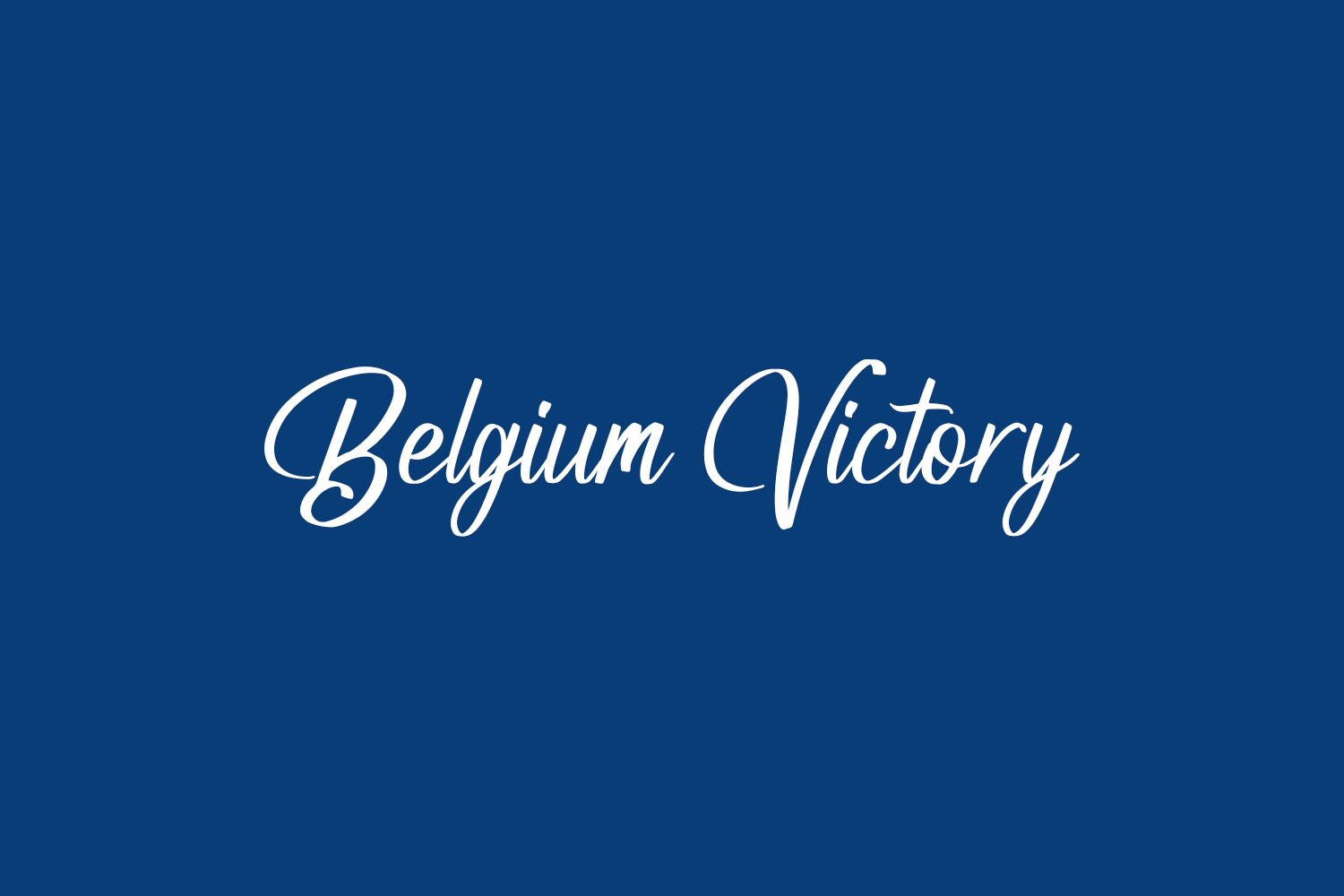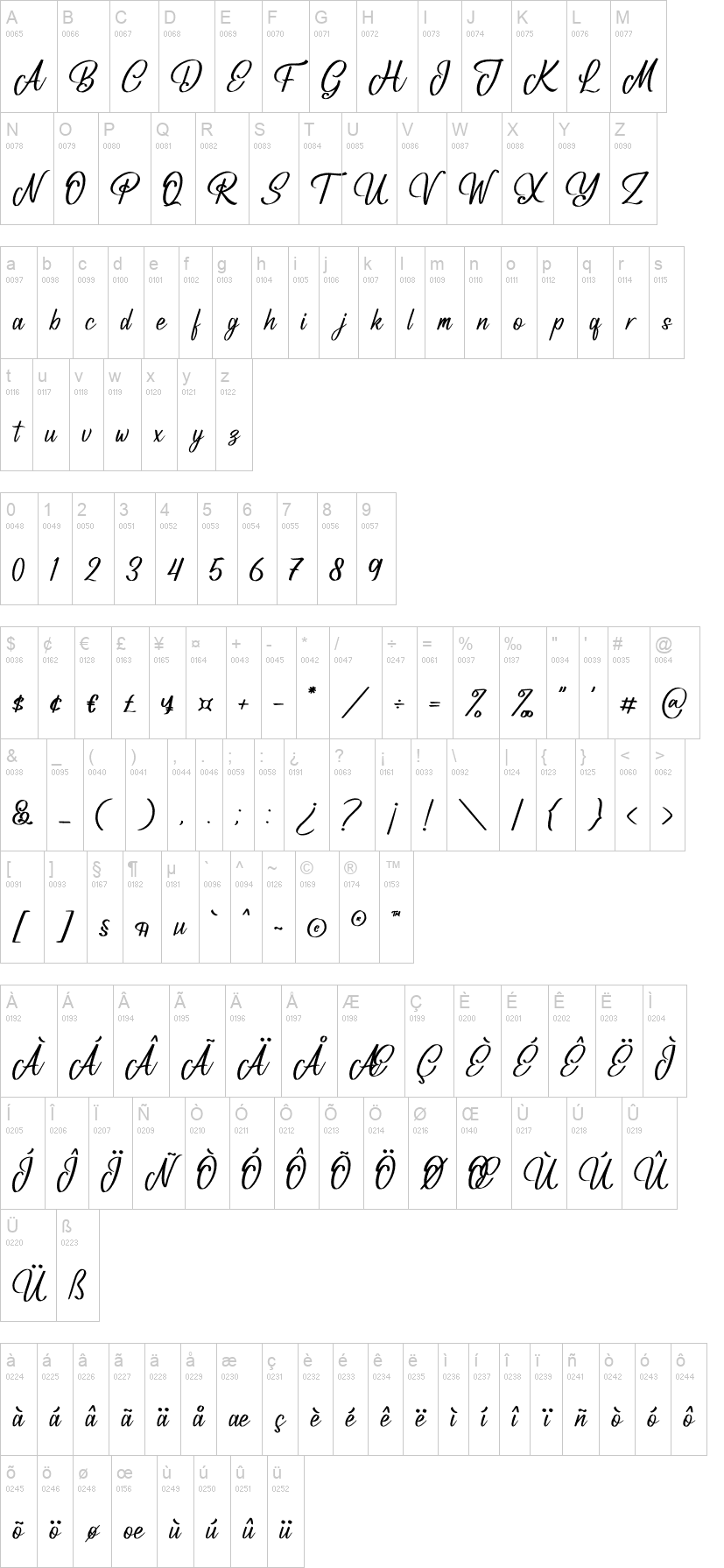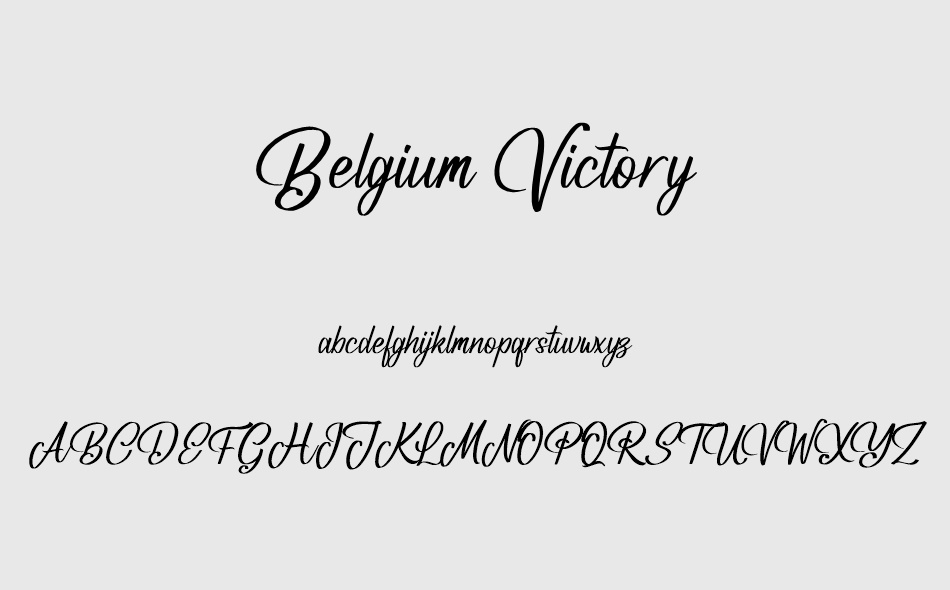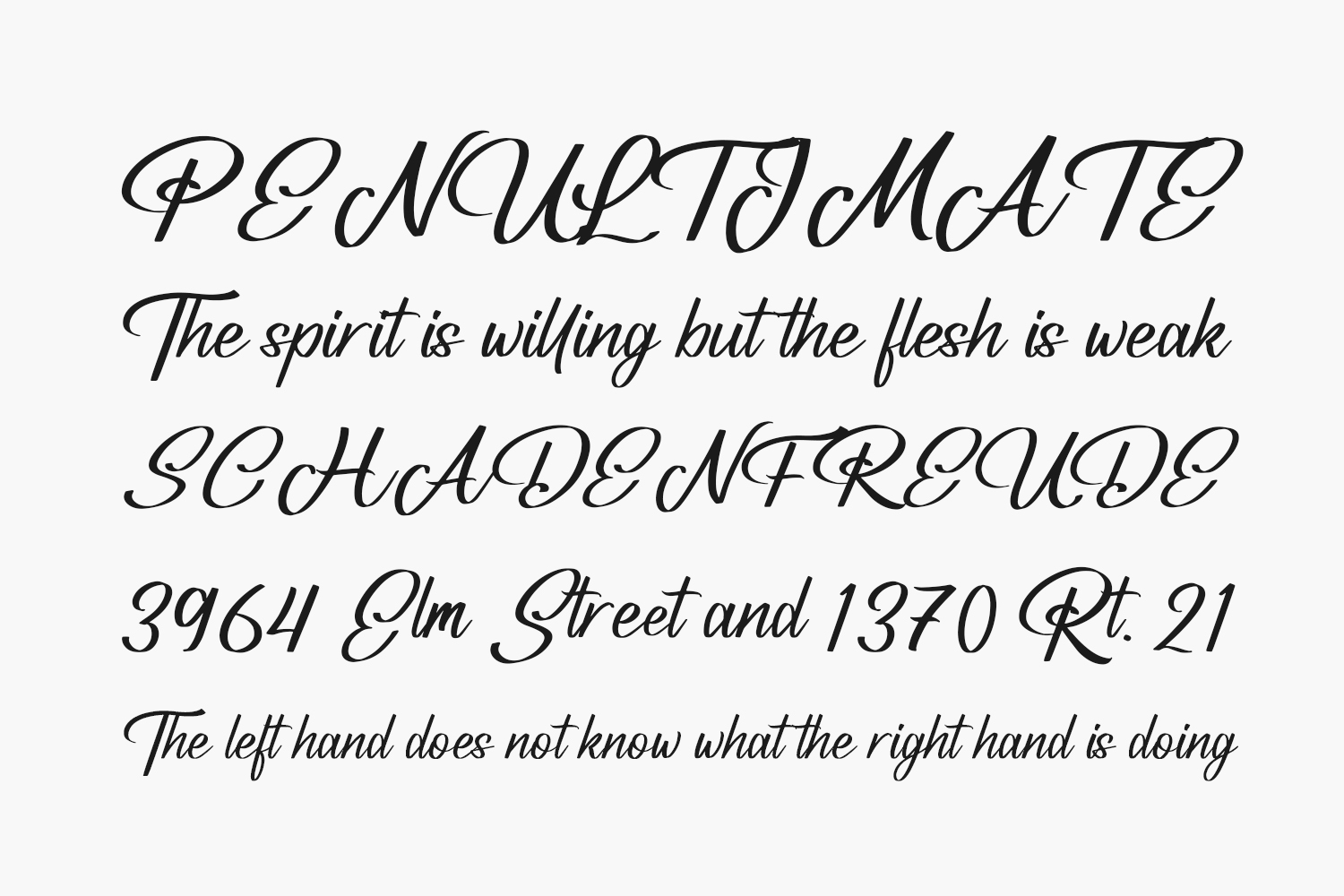
Belgium Victory Font
Belgium Victory Font - This font was particularly crafted. Web belgium victory is a lovely and delicate script font that exudes elegance and class.
Web belgium victory is a lovely and delicate script font that exudes elegance and class. This font was particularly crafted.
This font was particularly crafted. Web belgium victory is a lovely and delicate script font that exudes elegance and class.
Web belgium victory is a lovely and delicate script font that exudes elegance and class. This font was particularly crafted.
Belgium Victory Modern Calligraphy Font By Perspectype
This font was particularly crafted. Web belgium victory is a lovely and delicate script font that exudes elegance and class.
Web belgium victory is a lovely and delicate script font that exudes elegance and class. This font was particularly crafted.
This font was particularly crafted. Web belgium victory is a lovely and delicate script font that exudes elegance and class.
Belgium Victory Font
Web belgium victory is a lovely and delicate script font that exudes elegance and class. This font was particularly crafted.
This font was particularly crafted. Web belgium victory is a lovely and delicate script font that exudes elegance and class.
Web belgium victory is a lovely and delicate script font that exudes elegance and class. This font was particularly crafted.
This font was particularly crafted. Web belgium victory is a lovely and delicate script font that exudes elegance and class.
This Font Was Particularly Crafted.
Web belgium victory is a lovely and delicate script font that exudes elegance and class.